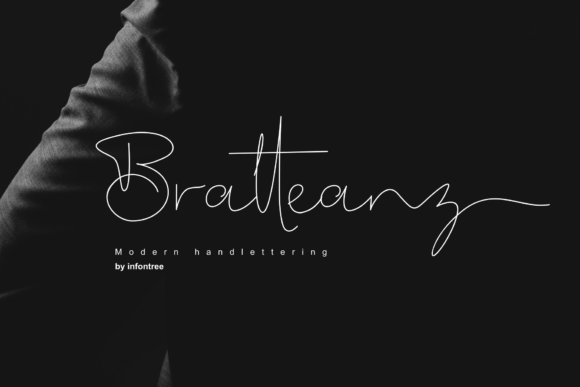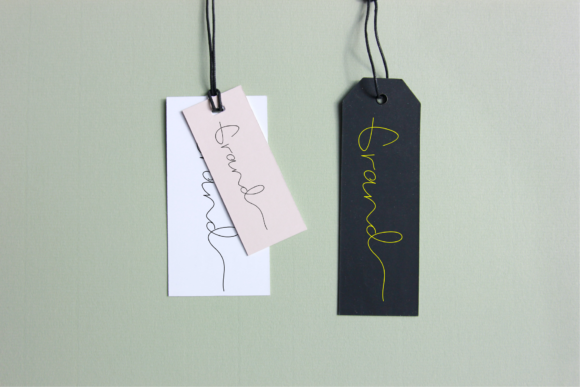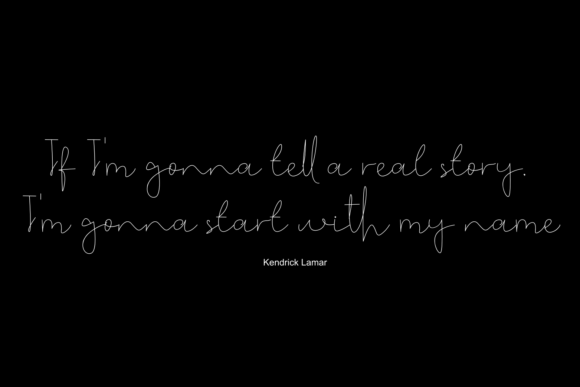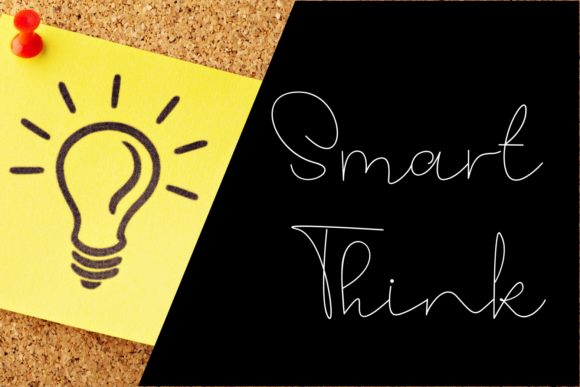
About Bratteanz Font
Bratteanz is a thin lettered and delicate script font that exudes elegance and class. It was crafted for those who need a beautiful and refreshing look to their designs.